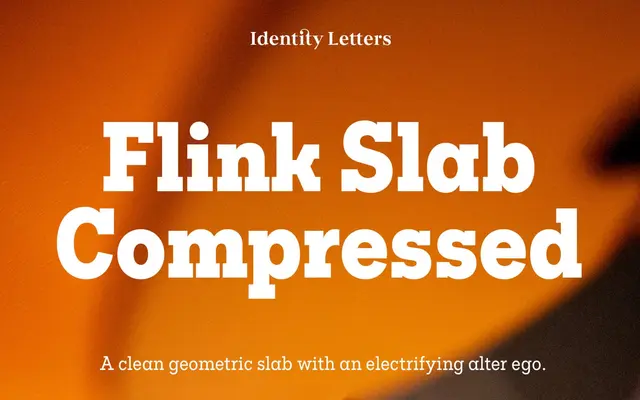
Flink Slab Compressed
A compressed geometric slab superfamily with unbracketed serifs, offered in nine weights with a separate high-energy 'Voltage' sub-family for display use.
Thirty-six fonts span two sub-families: the standard Flink Slab Compressed and the Voltage variant, which provides alternate letterforms designed for maximum impact at display sizes. Both share the same geometric skeleton and vertical metrics as Flink Neue, allowing the two superfamilies to be mixed freely across a layout. OpenType features include small capitals, oldstyle figures, proportional figures and alternates such as double-storey a and triple-storey g.
Unbracketed slab serifs on a clean geometric skeleton place this firmly in the geometric slab category, distinct from humanist or transitional slab traditions.